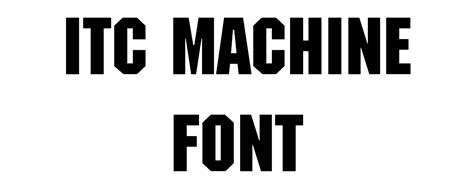
Itc Machine Font Generator. Itc machine medium is a medium opentype font. Itc machine is a bold condensed sans serif where the normal curves have been cut angularly.
ITC Machine™ Medium
Itc machine is a display face, only available in capitals. Www.adobe.com 19929 views, 3517 downloads share share share. 11 users have given the font a rating of 4.73 out of 5. Web itc machine font family was designed by tom carnase, ronne bonder and published by itc. Itc machine is a bold condensed sans serif where the normal curves have been cut angularly. Itc machine contains 4 styles and family package options. Itc machine is a display face, only available in capitals. You can find more information about itc machine. Web itc machine font was created by the design team of bonder and carnase, a bold uppcase alphabet whose geometric letters add strength to any presentation. Web itc machine std font. Itc machine font is excellent for signage and other.